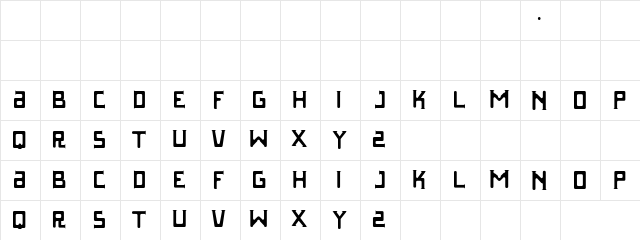
Officer Choice Regular
Design Context for Officer Choice Typeface
Officer Choice takes a measured approach to typography — its balanced proportions and neutral character make it a reliable workhorse for both digital and print work.